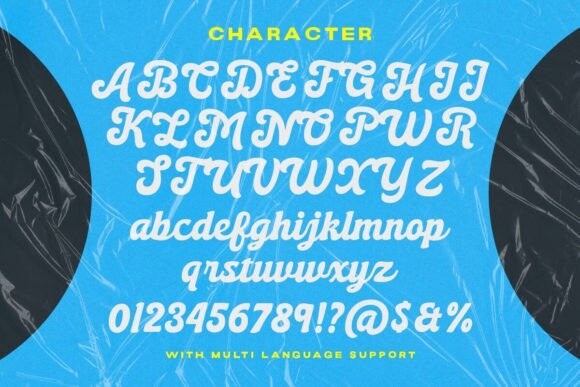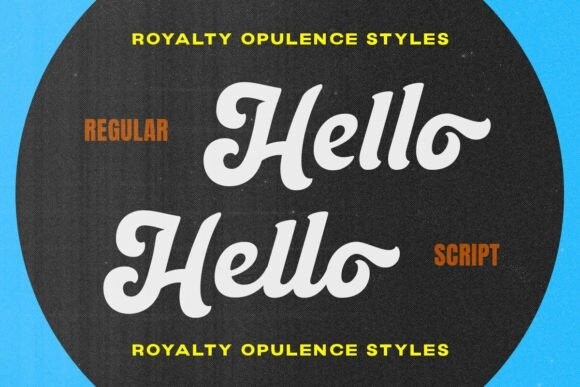
Royalty Opulance Font
Royalty Opulance Font – a standout bold script with simple sans in one typeface. This type of font is perfectly made to be applied especially in logos, headlines, signage, and the other various formal forms such as invitations, labels, logos, magazines, books, greeting/wedding cards, packaging, fashion, makeup, stationery, novels, labels or any type of advertising purpose.